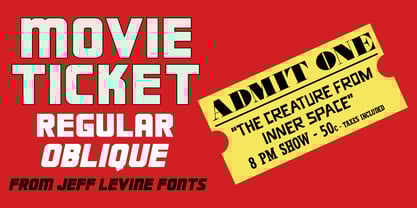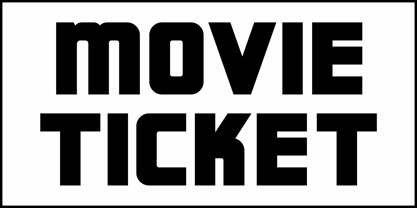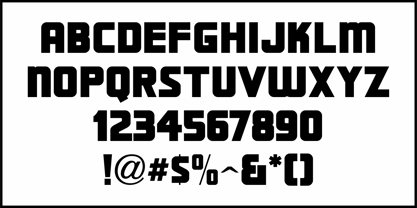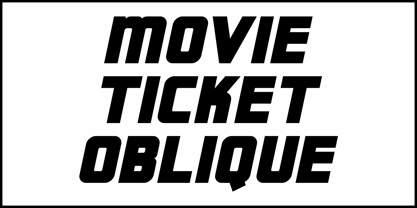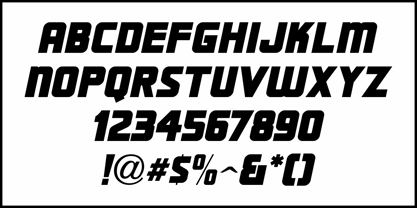
Movie Ticket JNL
by Jeff Levine
Removing the inside portion of the outline font Theater News JNL resulted in an extra bold, square-ish sans serif with rounded corners which is perfect for headlines and titles that need to show impact and strong emphasis.
The original outline design [complete with a retro Art Deco look] was modeled from a series of British Pathé newsreel titles made during the height of Beatlemania in 1964.
This companion font, Movie Ticket JNL is available in both regular and oblique versions.